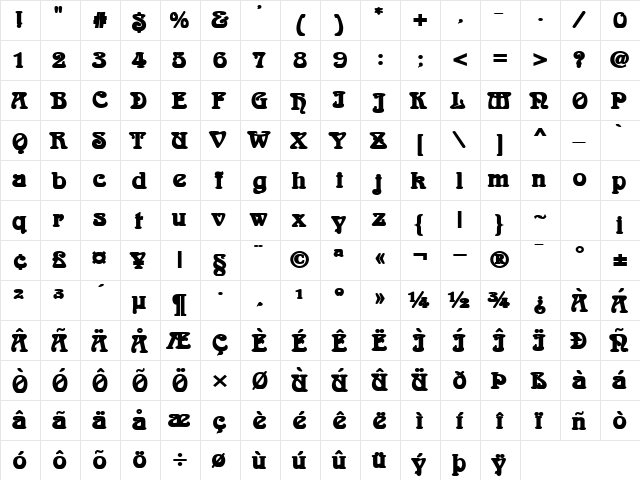
Aidan Bold
Design Context for Aidan Typeface
Aidan is a composed and adaptable typeface that performs quietly and consistently across a wide range of design contexts. The heavy weight commands attention and anchors typographic hierarchies.